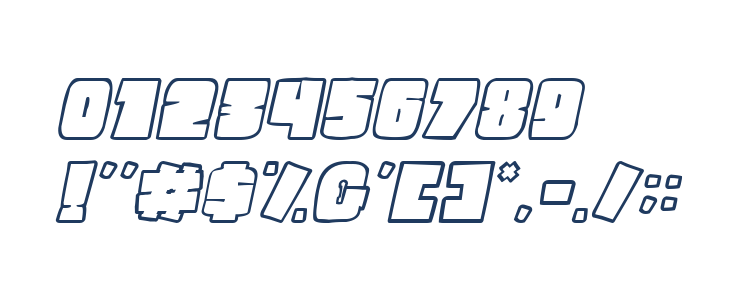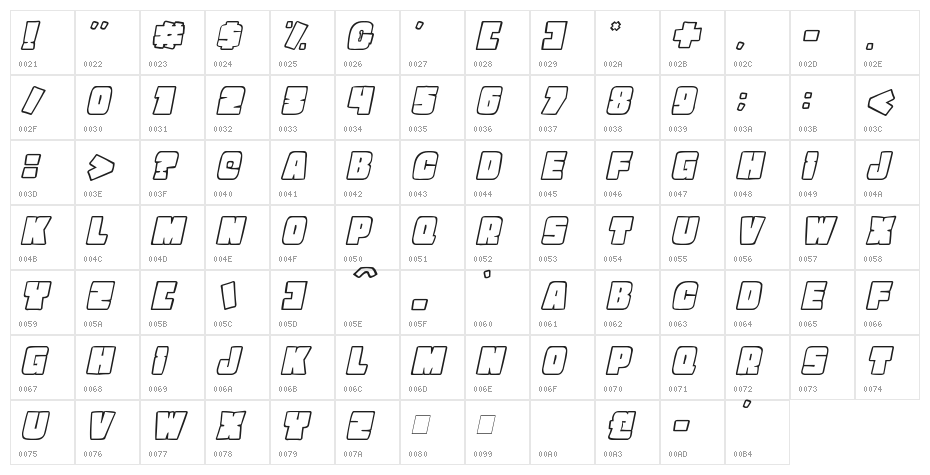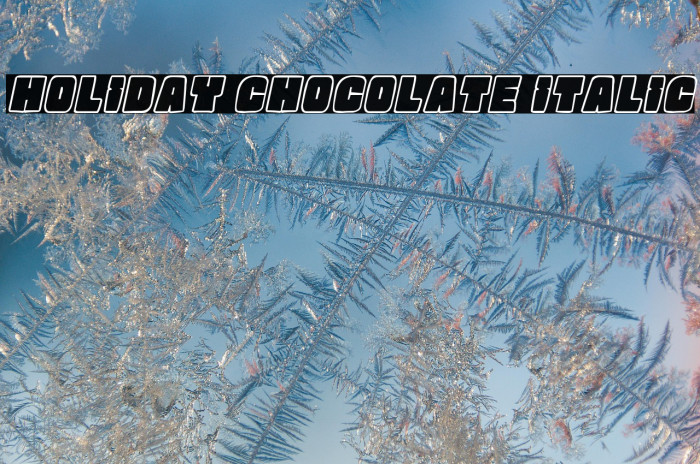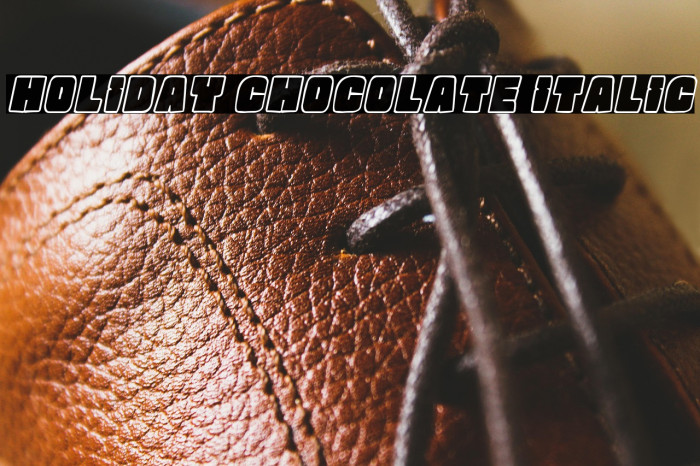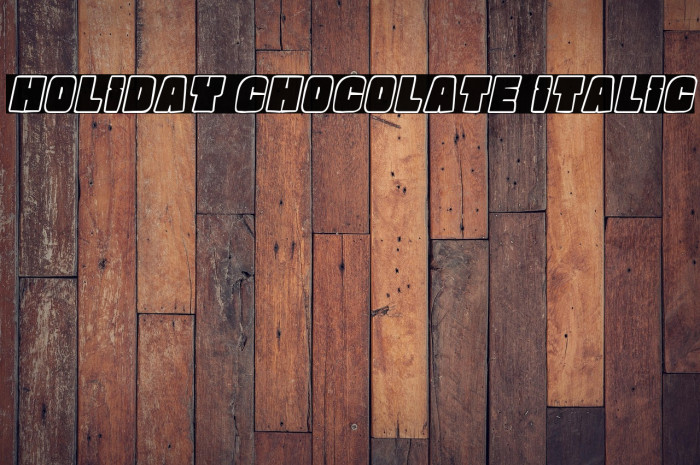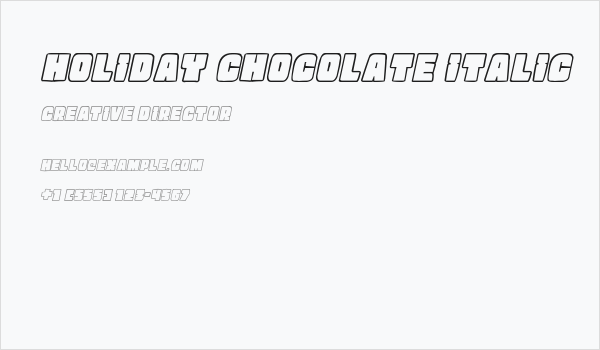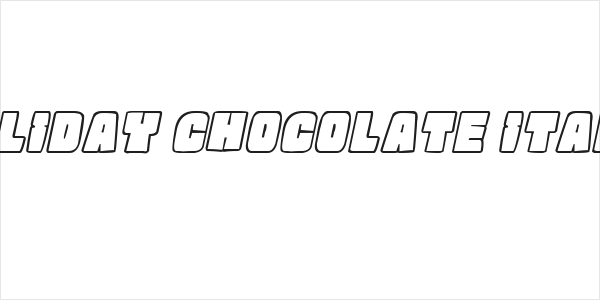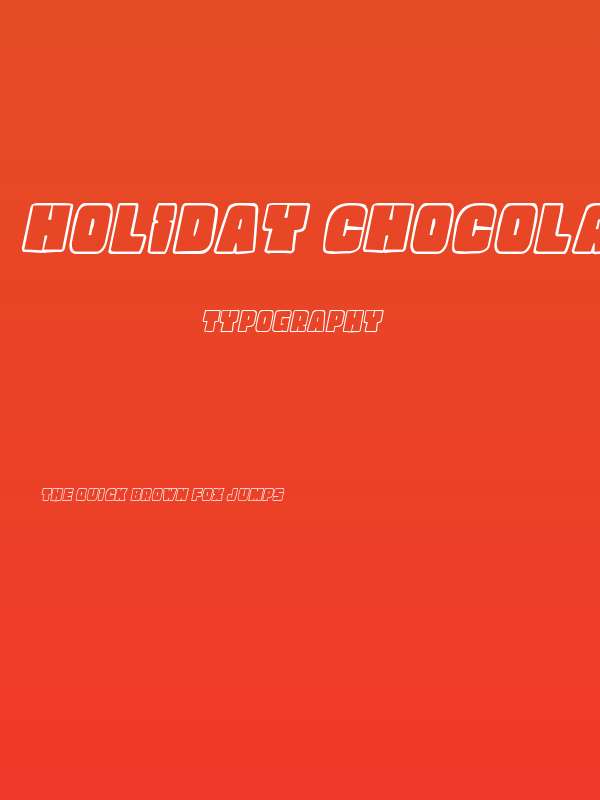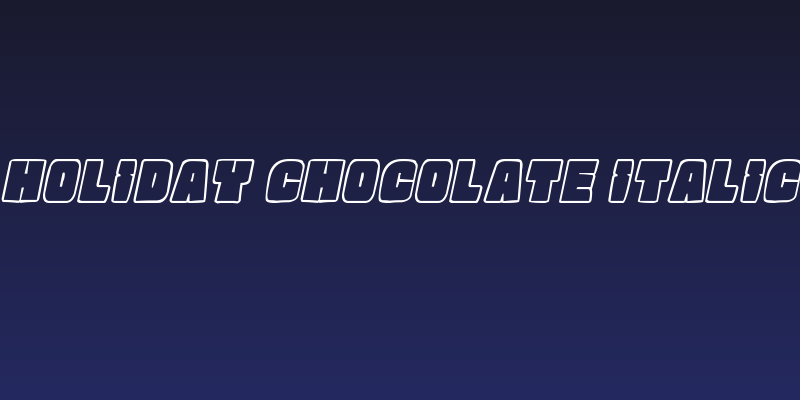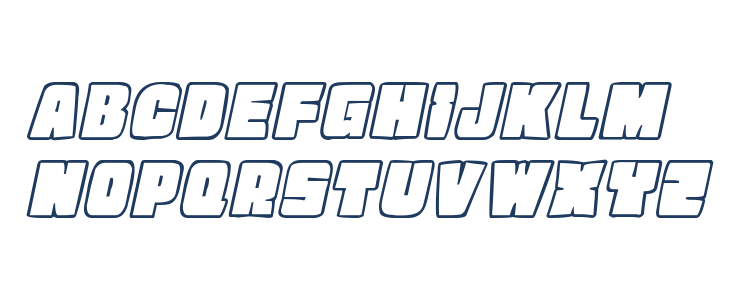
Holiday Chocolate Italic Font
Holiday Chocolate Italic Description
This font features a bold, playful style with a three-dimensional effect, giving each character a sense of depth and volume. The letters are outlined with a thick black border, enhancing their visibility and impact. The characters are slightly italicized, adding a dynamic and energetic feel. The font's design is reminiscent of comic book or cartoon styles, making it ideal for creative and informal applications. The uppercase and lowercase letters maintain a consistent style, with rounded edges and a blocky appearance. Numbers and special characters follow the same design principles, ensuring uniformity across all text elements.
| Overall Style | Playful, Comic |
| Proposed Projects | Ideal for comic books, children's books, playful branding, and eye-catching headlines. |